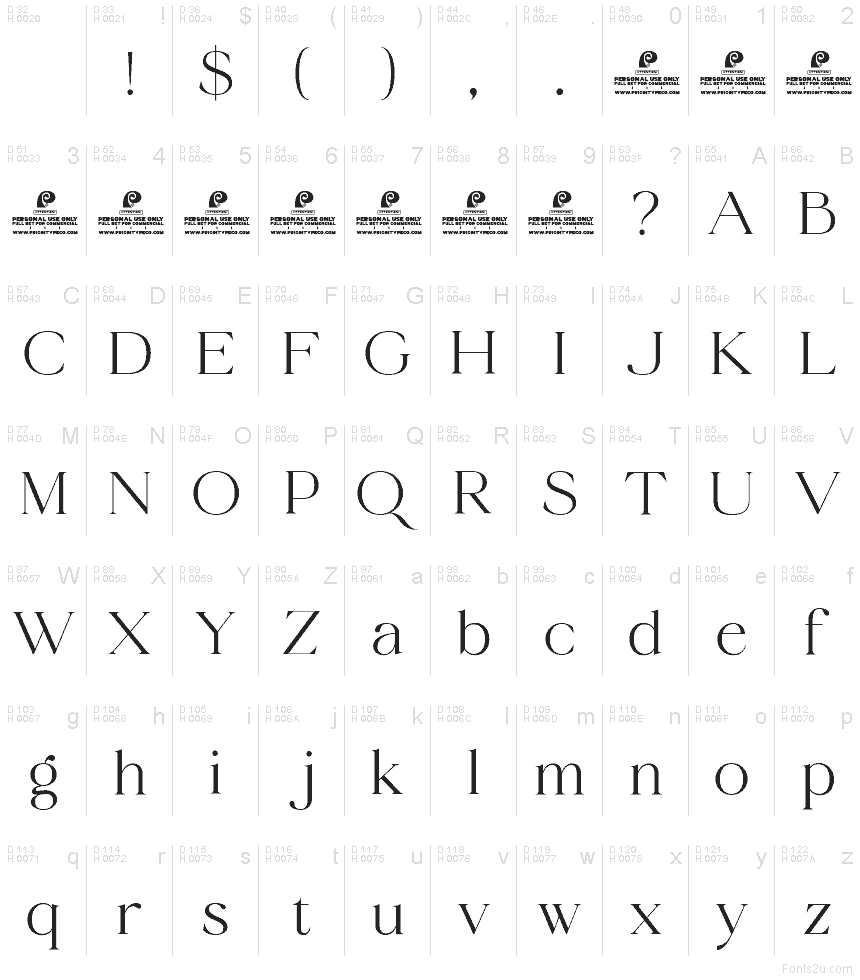
Radiant Charisma DEMO Regular
Radiant Charisma font by Prioritype Co is a classic and refined free serif font. With elegant and sophisticated characters, this professional font will make your designs look both clean and luxurious; hence appealing to all types of clients and customers.
Common uses for Radiant Charisma include: websites, blogs, posters, packaging, advertisements, social media campaigns, apps, logos, branding projects, books titles; to name a few.